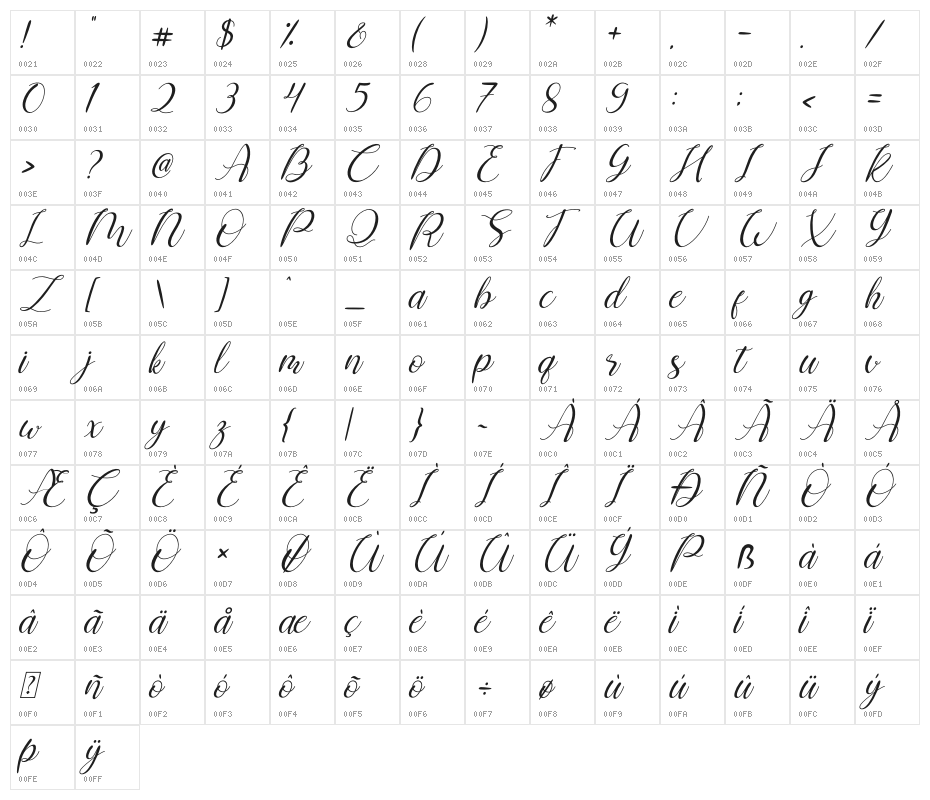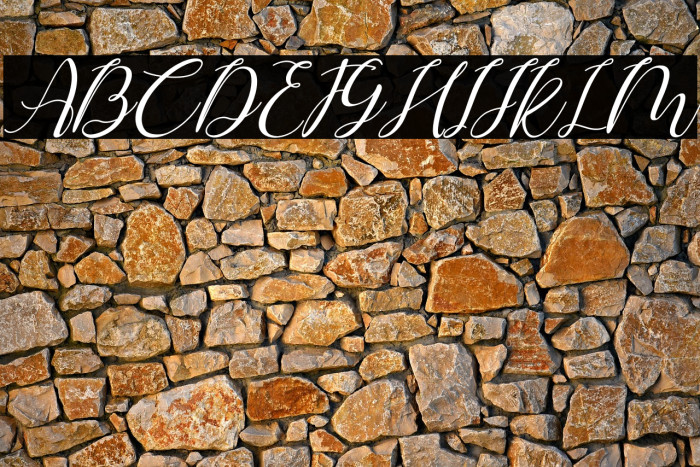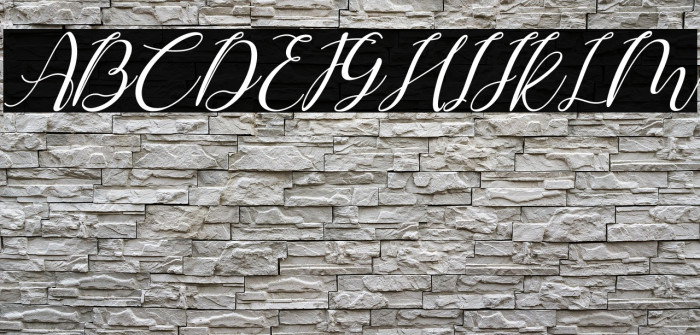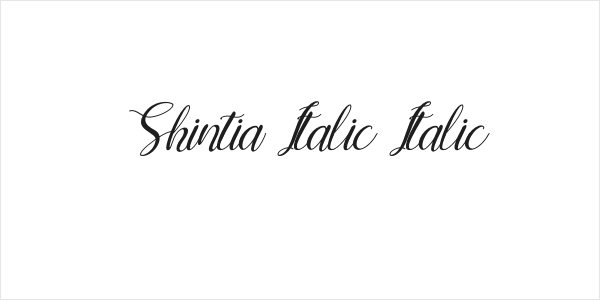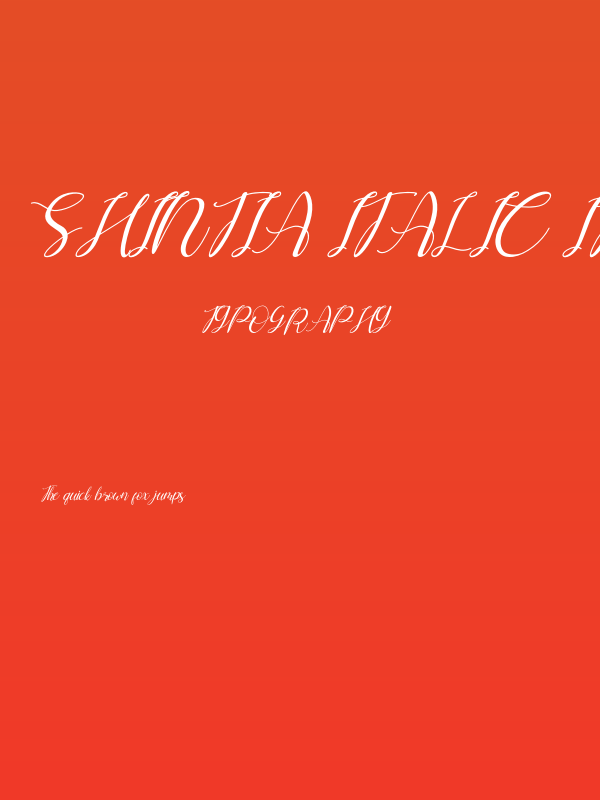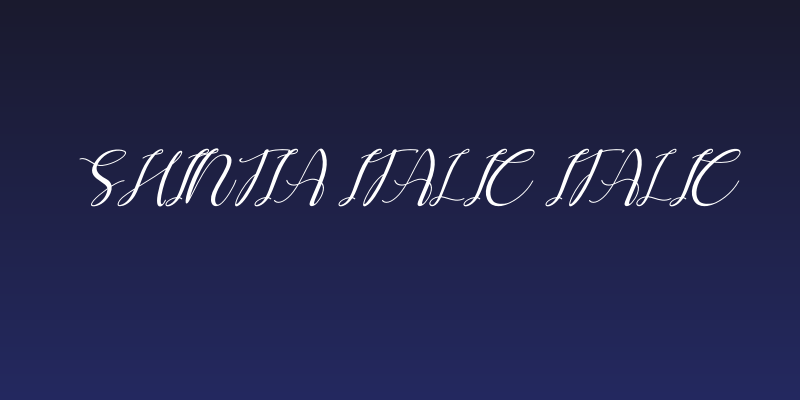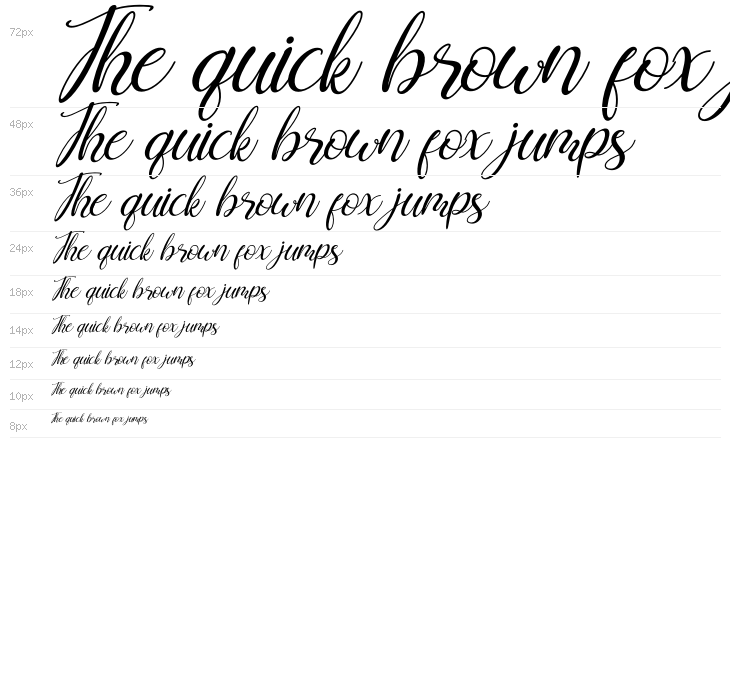
Shintia Italic Italic Font
Shintia Italic Italic Description
This elegant script font features flowing, cursive letters with a sophisticated flair. The characters are designed with smooth, sweeping curves and a consistent slant, giving it a graceful and dynamic appearance. The uppercase letters are ornate and decorative, while the lowercase letters maintain a more subtle elegance. The numerals and special characters are crafted to match the overall style, ensuring a cohesive look. This font is perfect for adding a touch of refinement and class to any project, making it ideal for invitations, branding, and other creative designs.
| Overall Style | Elegant, Decorative |
| Use Case | Headlines, Invitations, Branding |
| Proposed Projects | Ideal for wedding invitations, elegant branding, greeting cards, and luxury product packaging. |